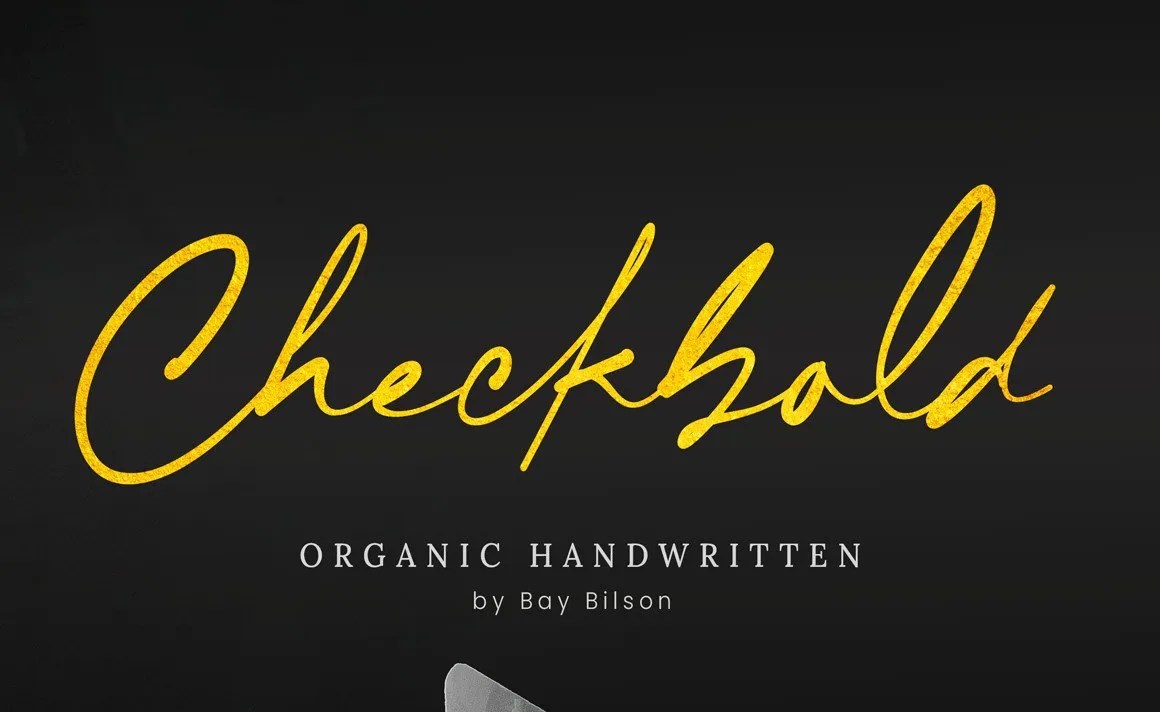
Checkbold Font
Checkbold is an eye-catching handwritten font designed to bring a fresh and contemporary edge to your projects. Combining sleek modernity with organic charm, this font offers a unique blend of elegance and creativity. Its fluid, stylish strokes make it ideal for a range of applications, from brand logos and product packaging to website designs and promotional materials.
The font’s modern and organic qualities ensure it stands out in various contexts, providing a distinctive look that captures attention and enhances visual appeal. Additionally, Checkbold is PUA encoded, which means it includes easy access to all its characters and stylistic features, allowing for versatile use in any creative endeavor.
Whether you’re looking to create memorable brand identities, stylish product labels, or engaging web content, Checkbold offers the flexibility and flair to elevate your designs. Its seamless integration into various design projects ensures that it remains a go-to choice for those seeking both modern sophistication and artistic expression.